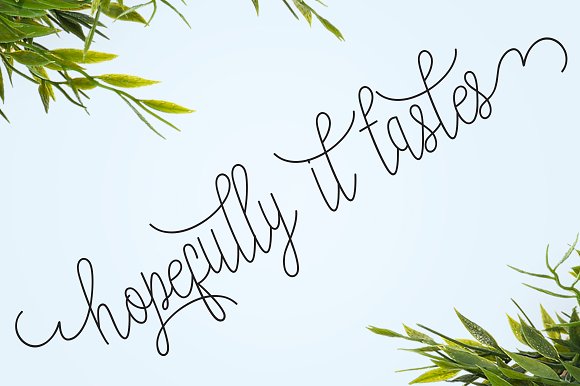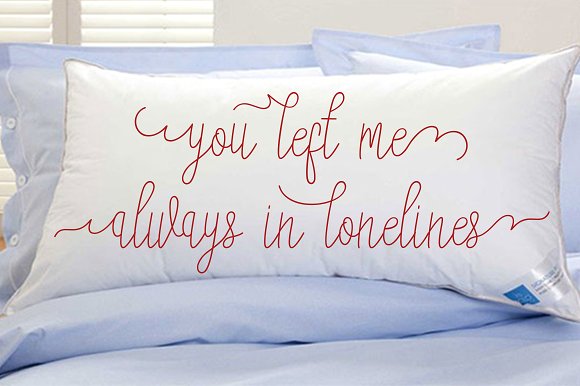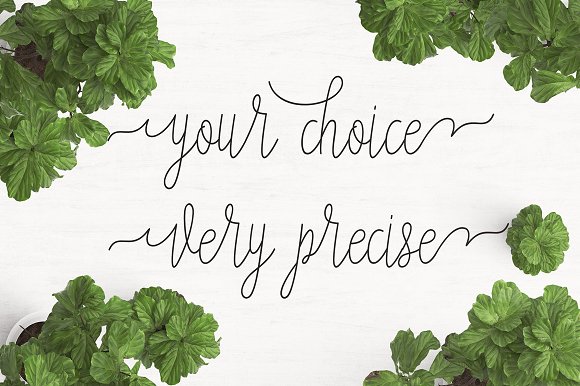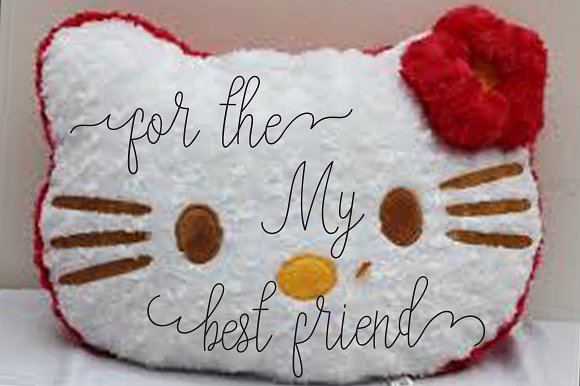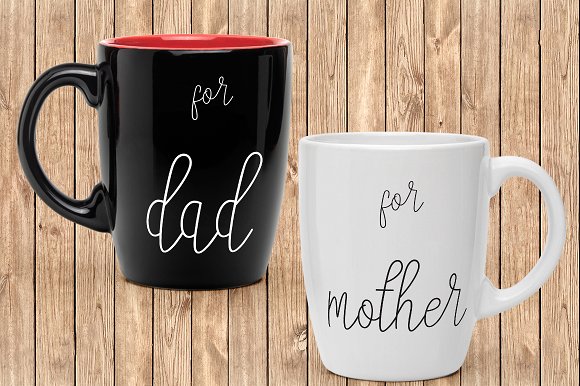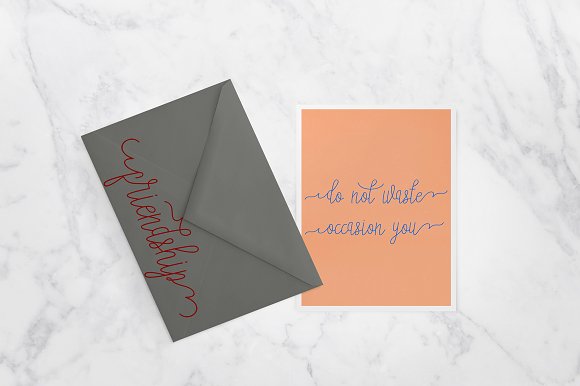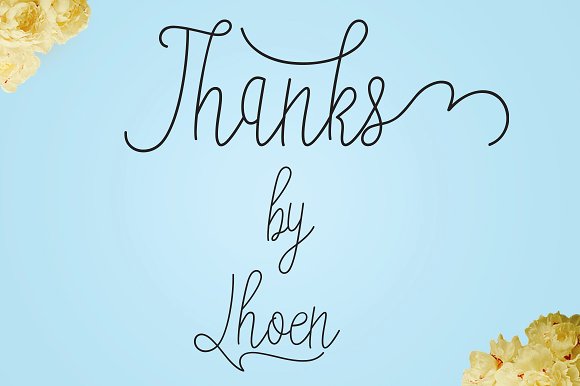
Mandar Font
About Mandar Font
Mandar is a handwritten script font by Jhoen Studios.
This stunning font is completely drawn by hand and contains many alternate characters with stunning swashes. The font is PUA encoded.